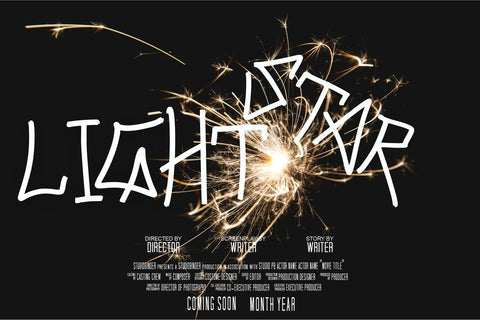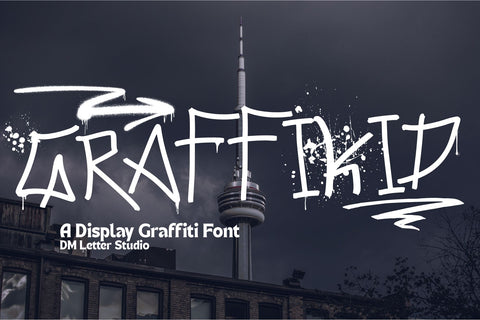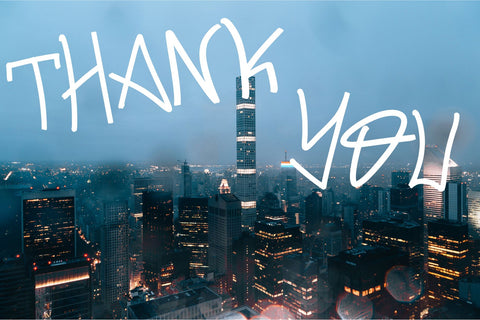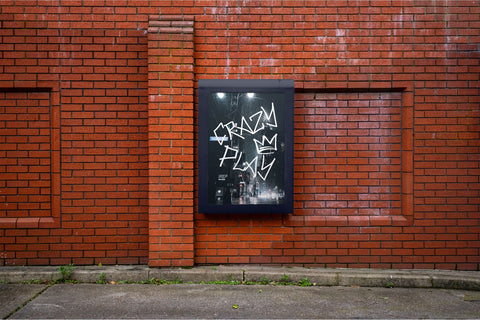
Graffikid
Graffikid – Playful Graffiti-Inspired Display Font with Urban Edge
Graffikid is a bold and bouncy display font inspired by street graffiti and youthful creativity. Its chunky, hand-sprayed look brings an urban and rebellious energy, perfect for school projects, streetwear branding, posters, and edgy designs with a kid-core twist.
Graffiti Aesthetic: Bold letterforms with irregular spray-paint vibes and cartoonish flair.
Youthful & Expressive: Evokes a playful yet gritty feel that speaks to urban culture and creativity.
Perfect for Creative Projects: Great for YouTube thumbnails, merch, album covers, event flyers, and digital stickers.